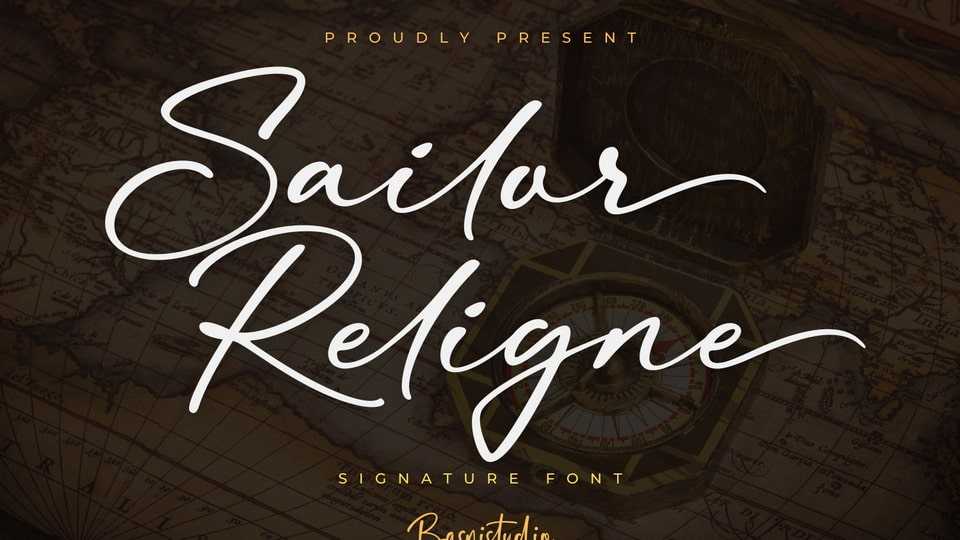
Download Sailor Religne font, a signature typeface that adds a elegant, versatile touch to everything from branding and social media to invitations and packaging.